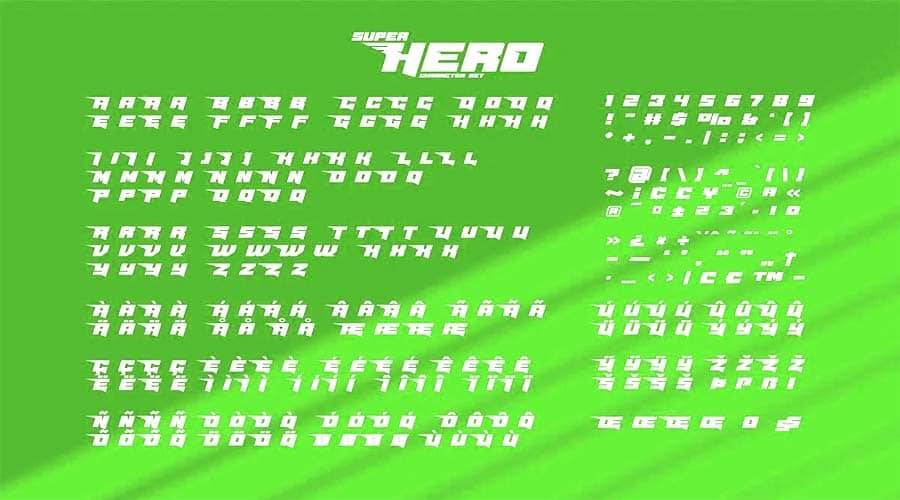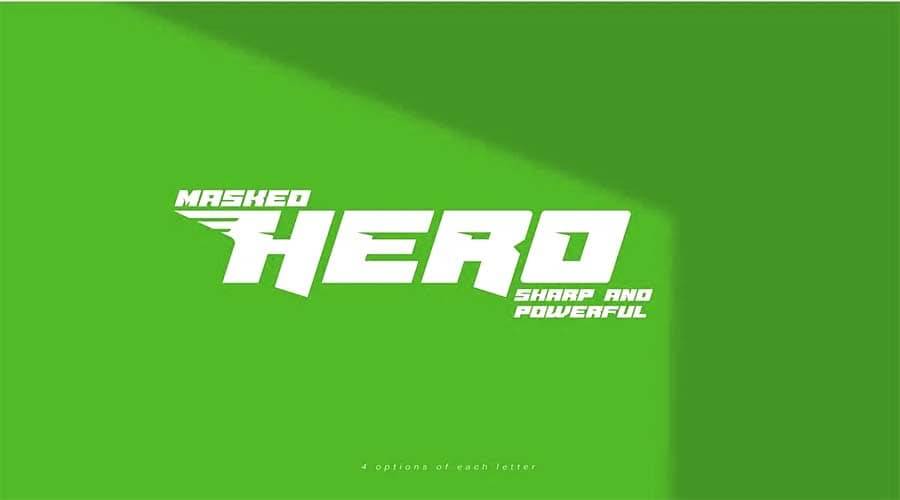
Masked Hero Font
Masked Hero Font is the latest Display font. The font is designed and published by linecreative on December 1, 2020.
Masked Hero Font is an amazingly designed Display font with many options: multilingual support and Photoshop styles. It’s a highly versatile typeface that performs well in both large and tiny sizes. Unfortunately, this beautiful font is only available in OTF format. Few similar fonts are Hamburg Hand Display Font Family, Ready Player One Display Font, Hello Pablo Display Font, and so on. This font is available for Windows, Mac OS X, Linux, Cricut, Silhouette, and other machine tools.
The Masked Hero Font is excellent for logos, wordmarks, subheadings, and large-scale illustrations. Use alternates between highlighting individual letters in your text; all character options are included in one font. The font randomly used in making official posters for many known companies.